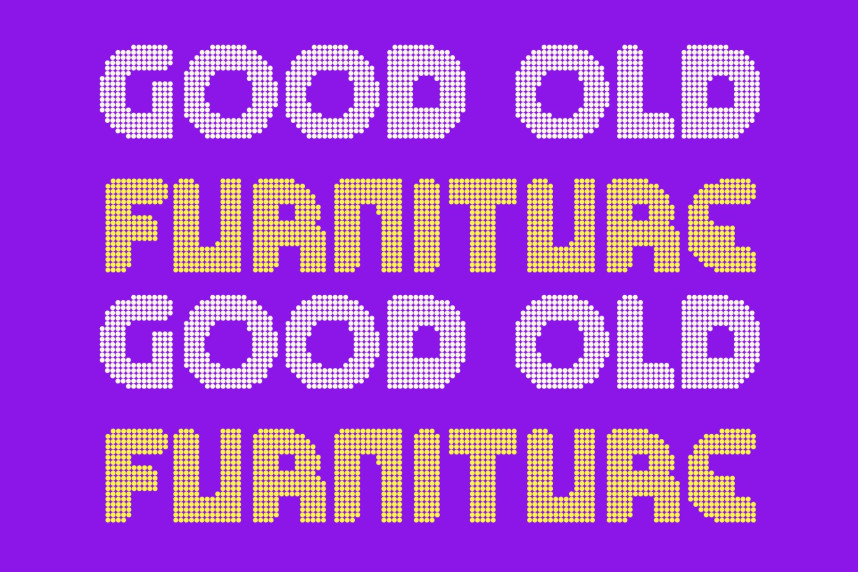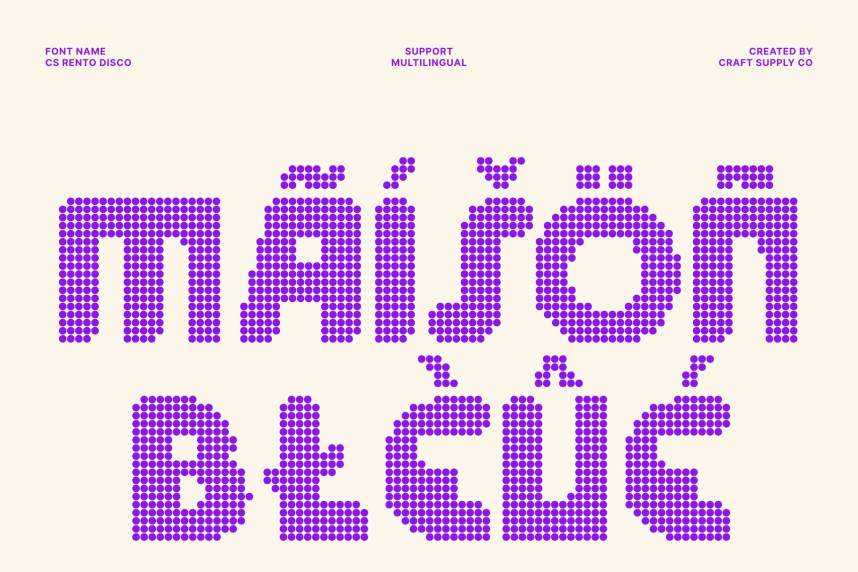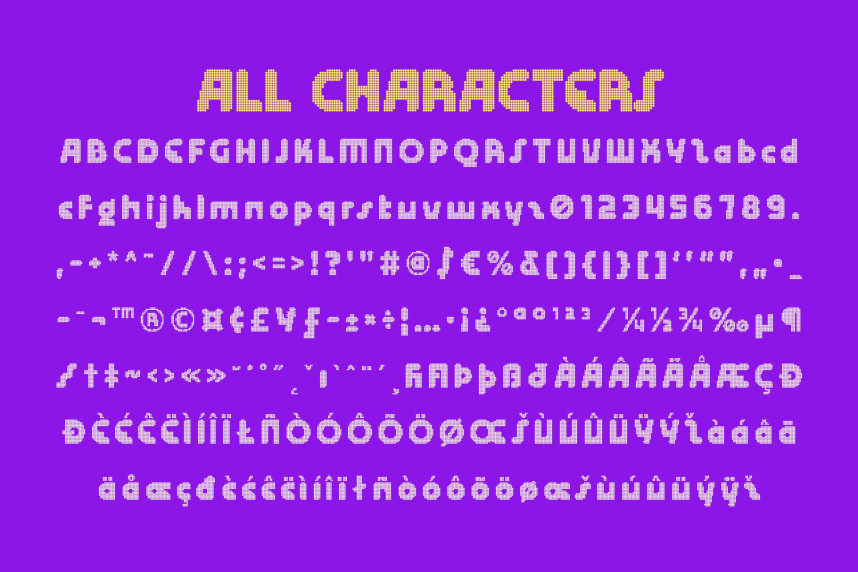
CS Rento Disco Font
CS Rento Disco Font – Futuristic Geometry with Sparkling Energy Bold Display Font with Disco Texture. This is a bold display font that combines strong geometric construction with a lively disco-style dotted texture. Its confident shapes create immediate visual impact, while the dotted surface introduces a subtle sparkle that brings rhythm and vibrancy to the typography.